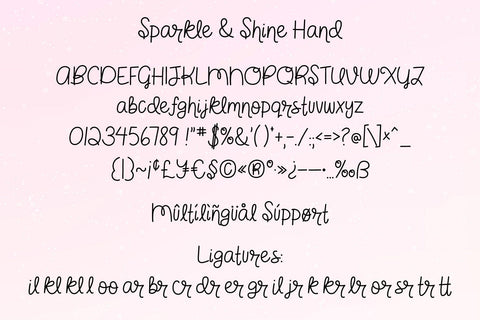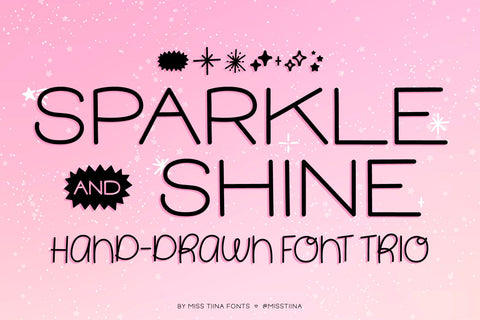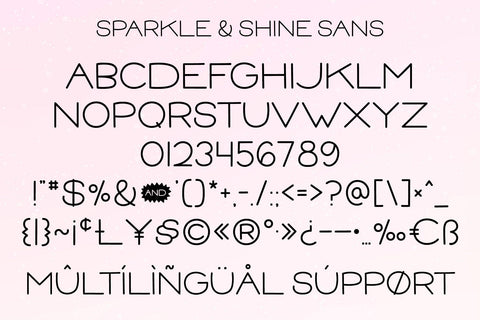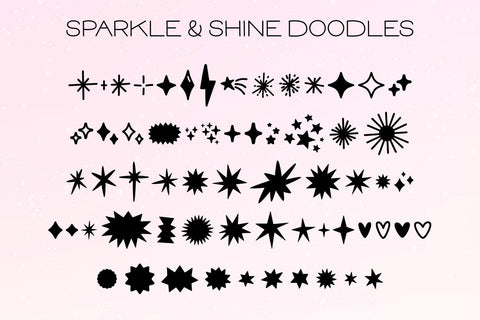
MTF Sparkle & Shine - Font Trio
Sparkle & Shine Font Trio is sure to bring happiness and joy to any project with it's playful charming characters! It's perfect for posters, t-shirts, home decor, planners, kids projects and so much more!
This font trio includes: Sparkle and Shine Hand, Sparkle and Shine Sans, and Sparkle and Shine Doodles - 62 fun and sparkly dingbat designs!